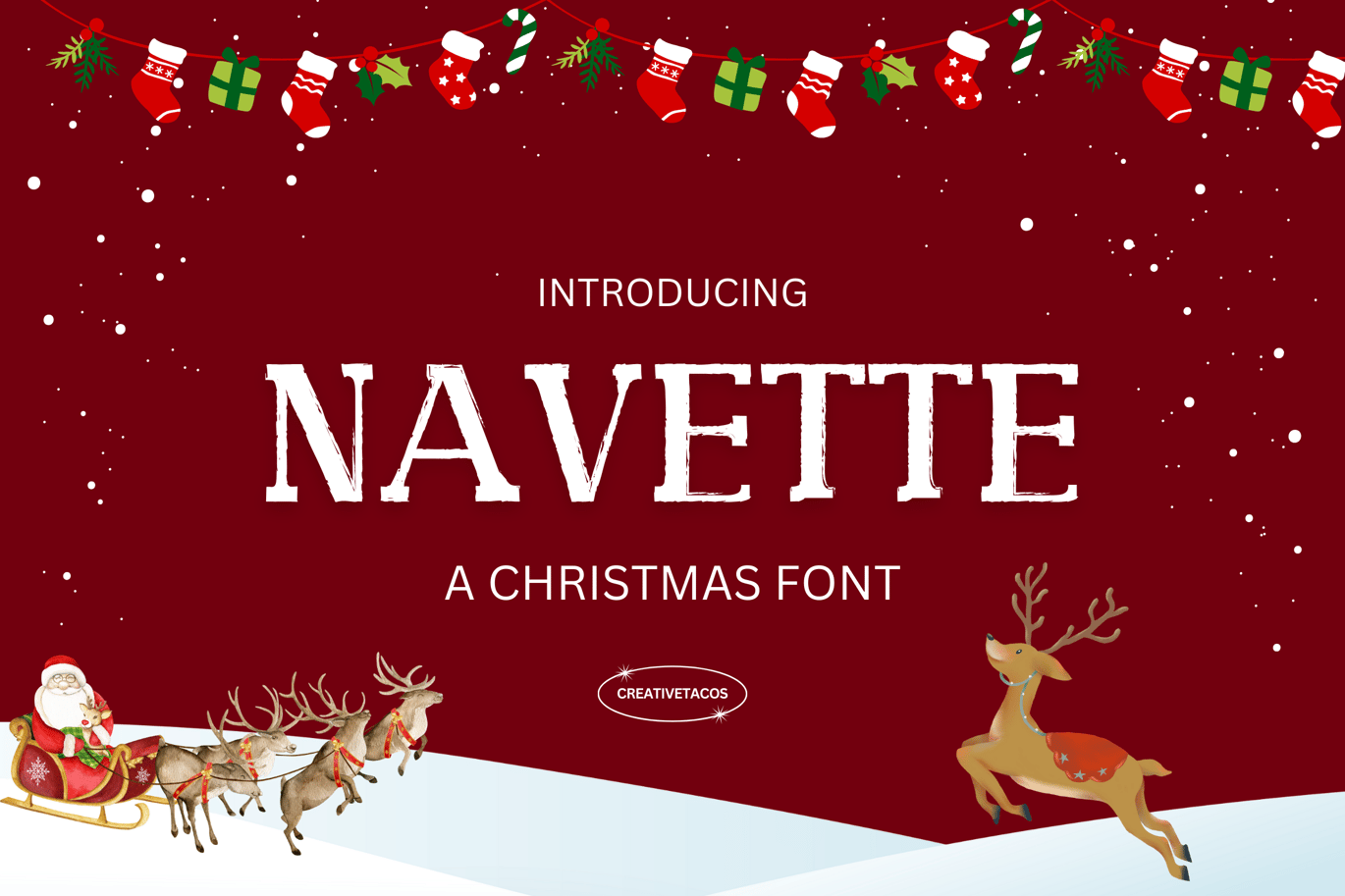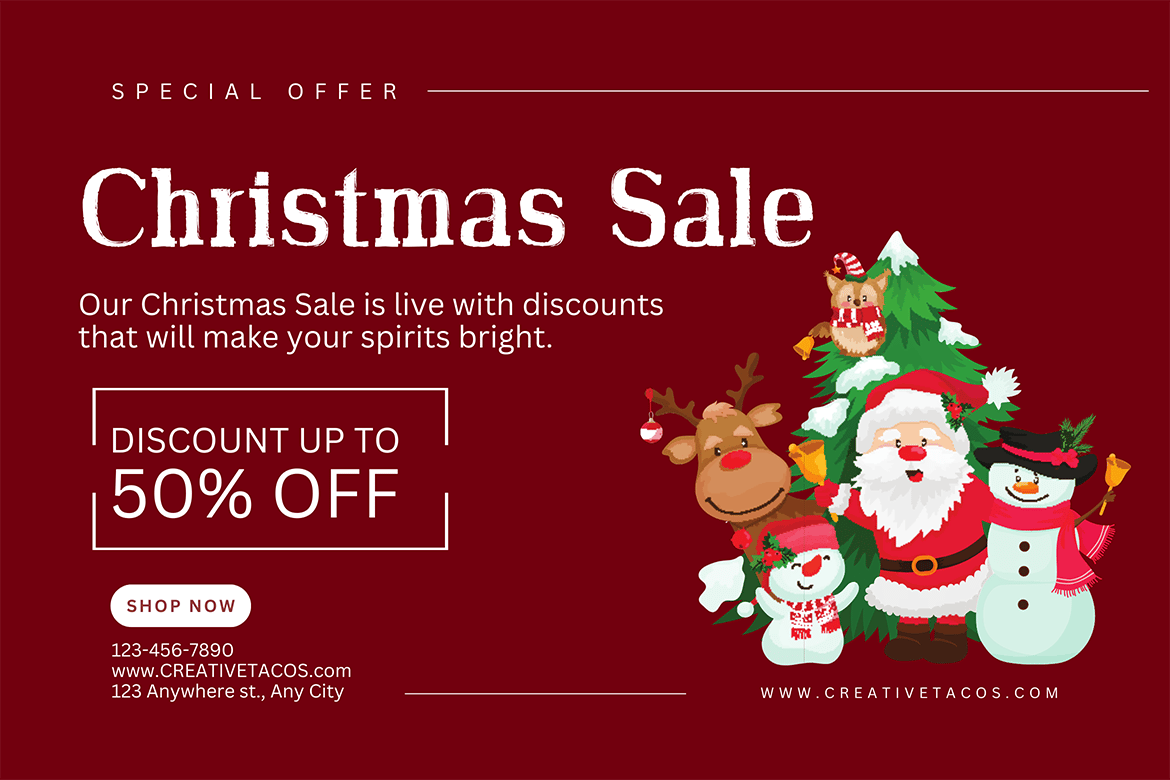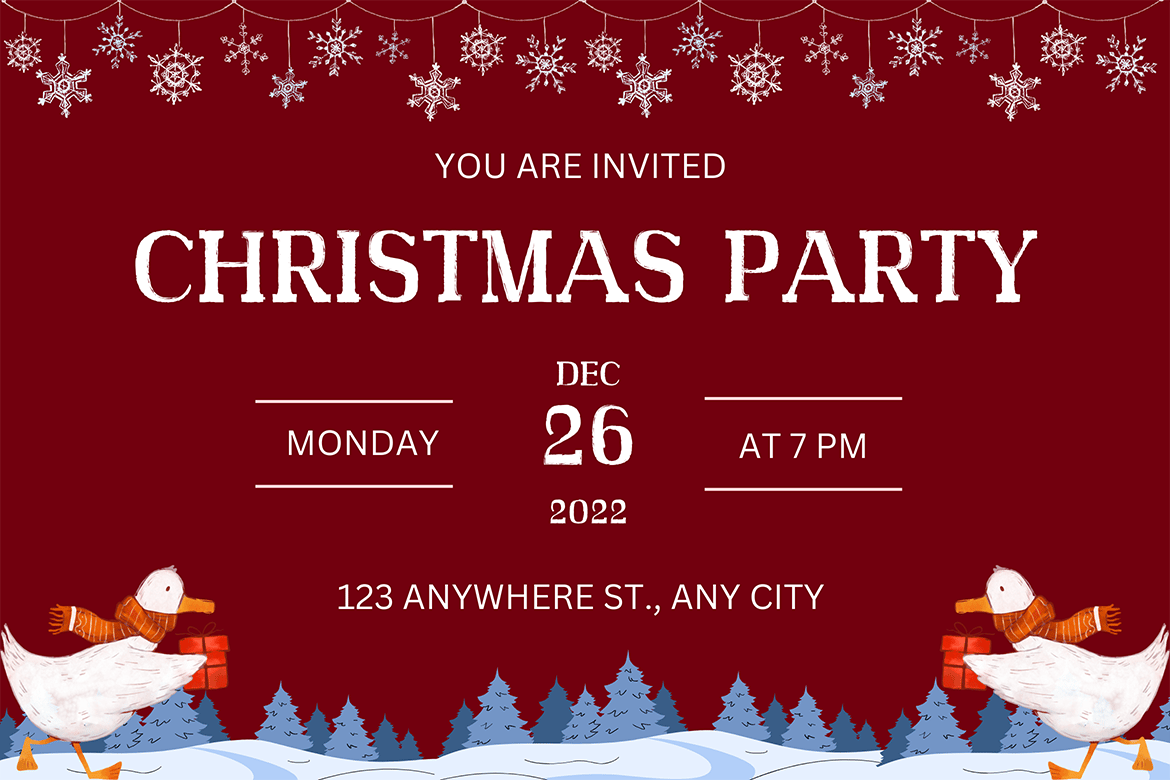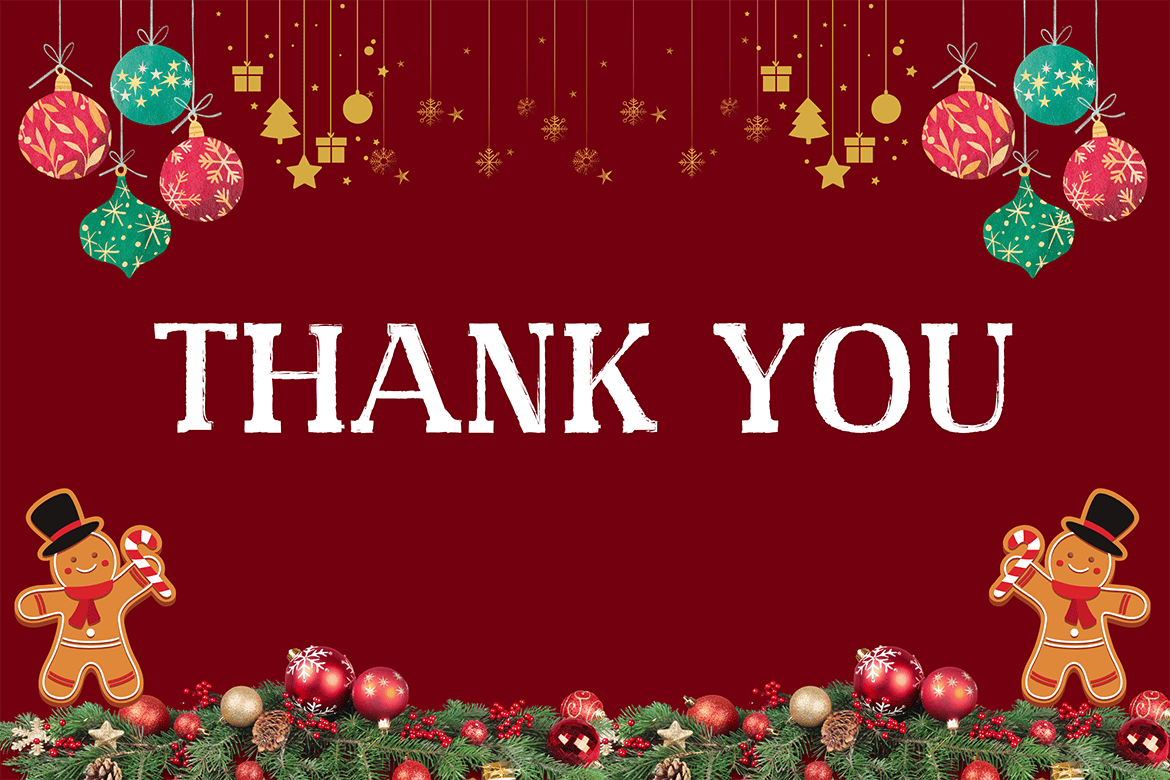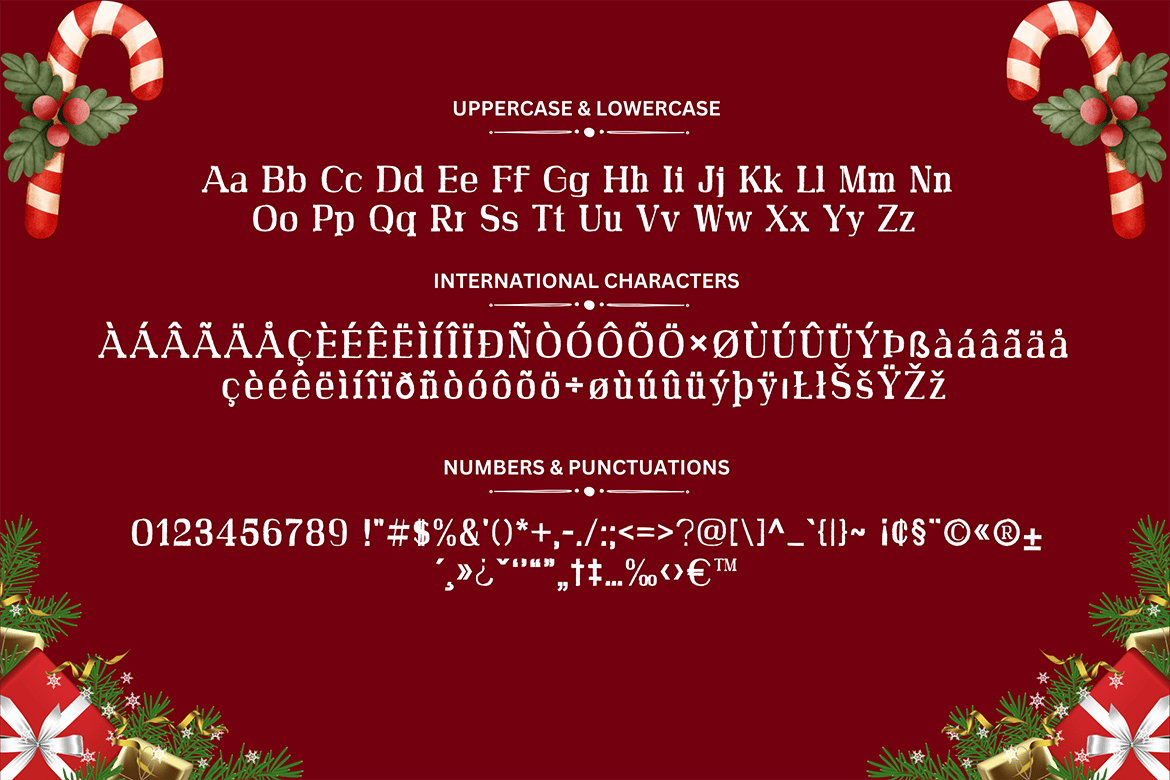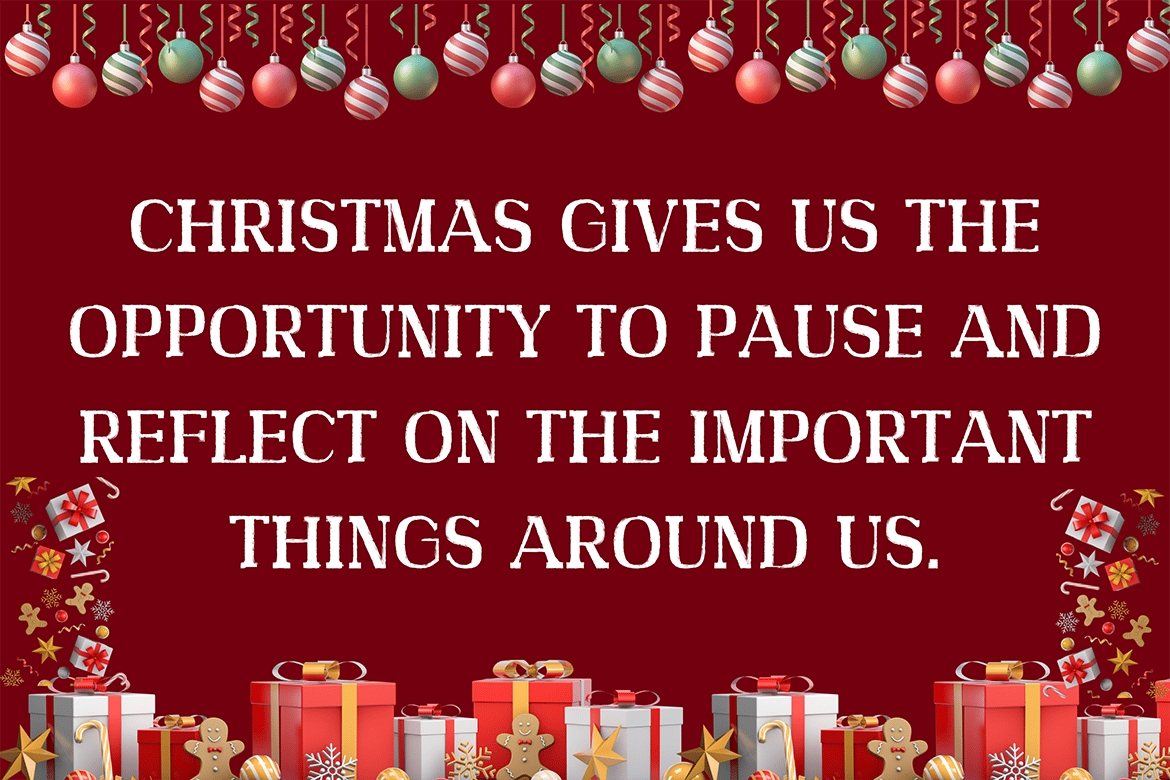
Navette Christmas Font
Hey, check out Navette Christmas Font, it’s a joyful and decorative font that is perfect for adding a festive touch to your designs during the holiday season. This font is all about playful and cheerful letter forms that will make your stuff pop.
This font includes uppercase and lowercase letters, numbers, punctuation, and multilingual support. It is designed with a hand-crafted style, giving it a unique and attractive appearance. Each letter is carefully crafted with intricate details and flourishes.
The Navette Christmas font is ideal for a variety of Christmas-themed projects. Whether you’re designing holiday party invitations, headlines, greeting cards, creating personalized gifts, or crafting social media posts, this font will add a touch of holiday spirit to your design.
- Weight of the Font: Regular
- Big Letters (Uppercase)
- Small Letters (Lowercase)
- Numbers & Symbols
Here’s a sneak peek at the characters supported:
- All the letters from A-Z (uppercase and lowercase)
- All the numbers from 0-9
- All these special characters – !”#$%&'()*+,-./:;=?@[]^_`{|}~ ¡¢§¨©«®±´÷ø¸»¿ˇ‘’“”„†‡…‰‹›€™
- And a range of international characters like
ÀÁÂÃÄÅÇÈÉÊËÌÍÎÏÐÑÒÓÔÕÖרÙÚÛÜÝÞßàáâãäåçèéêëìíîïðñòóôõöùúûüýþÿıŁłŠšŸŽž